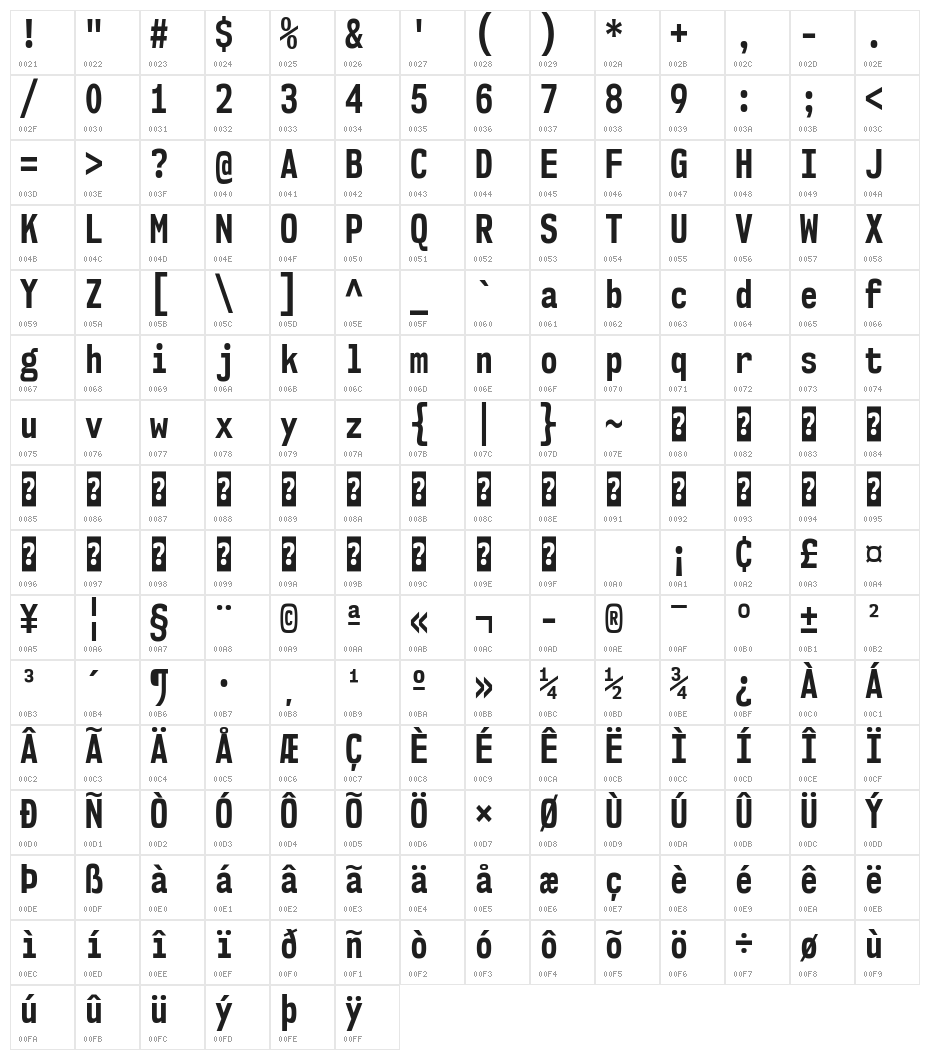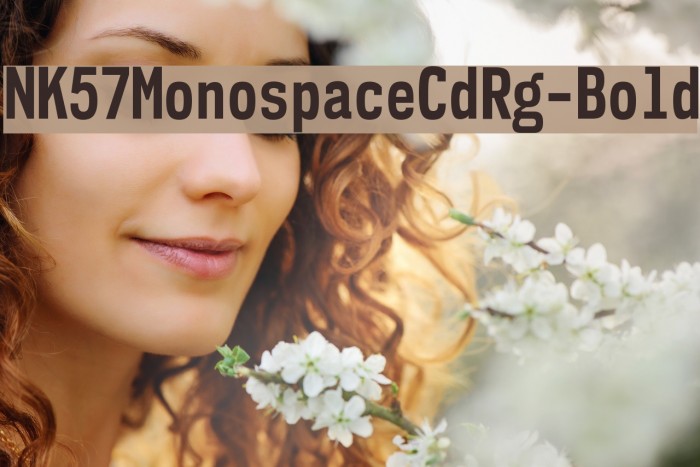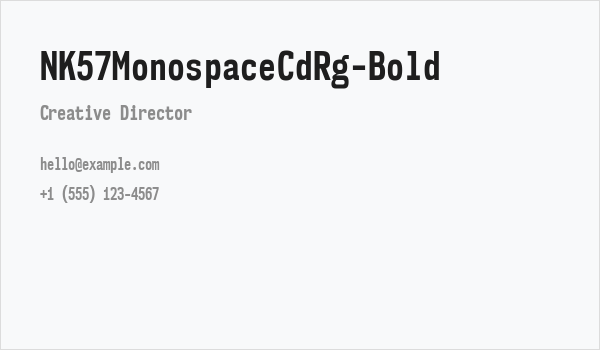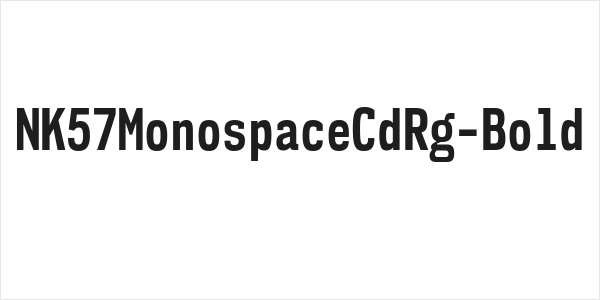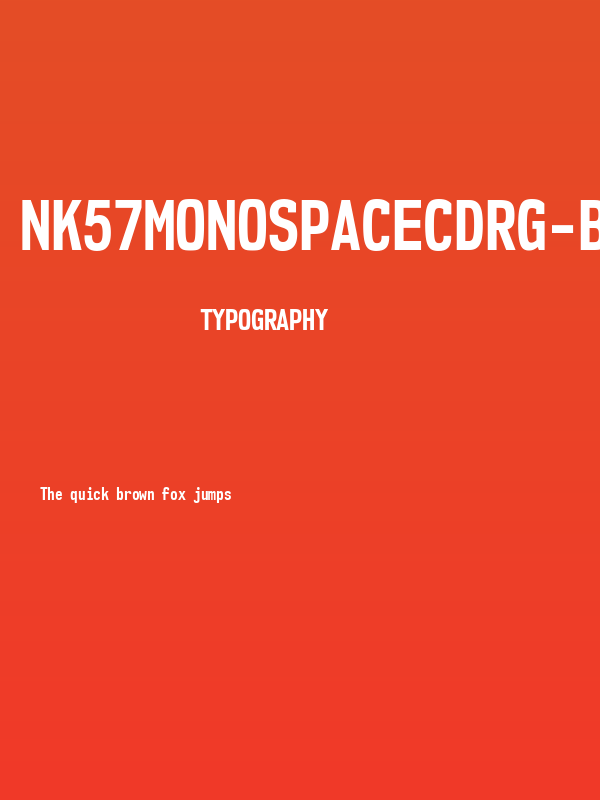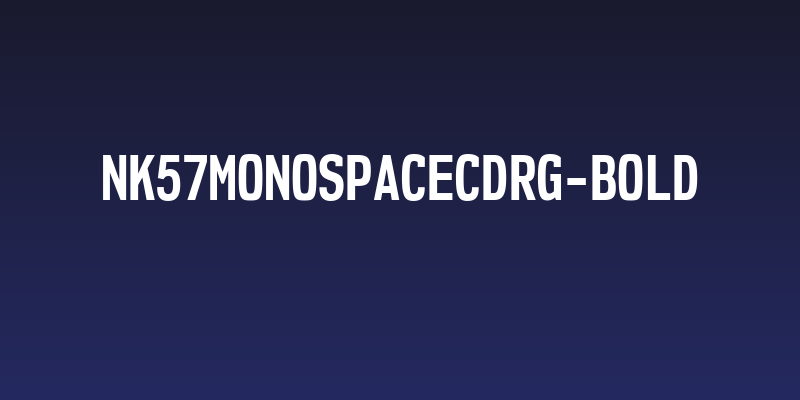
NK57MonospaceCdRg-Bold Font
NK57MonospaceCdRg-Bold Description
This font features a bold and robust design, characterized by its monospaced structure. Each character occupies the same amount of horizontal space, providing a uniform and orderly appearance. The letters are tall and slightly condensed, with clean lines and minimal embellishments, making it highly legible. The uppercase letters are strong and assertive, while the lowercase letters maintain a consistent height and width, enhancing readability. The numerals are clear and distinct, ensuring easy differentiation. Special characters are well-defined and integrate seamlessly with the overall design.
| Use Case | Coding, Technical documentation, User interfaces |
| Proposed Projects | Ideal for coding environments, technical documentation, and any project requiring precise alignment and readability. |